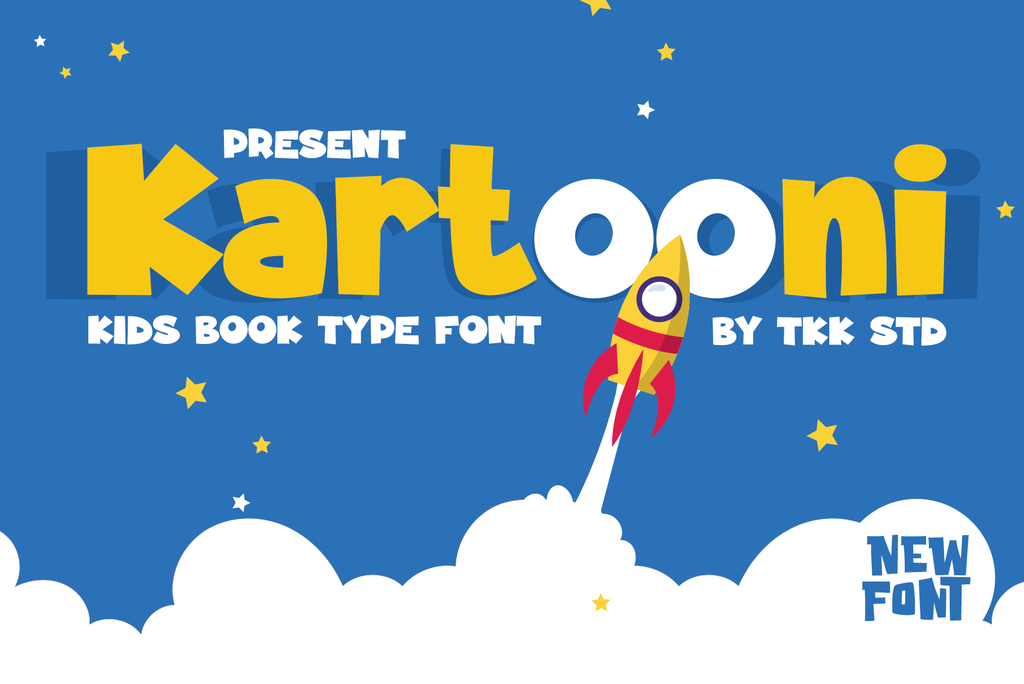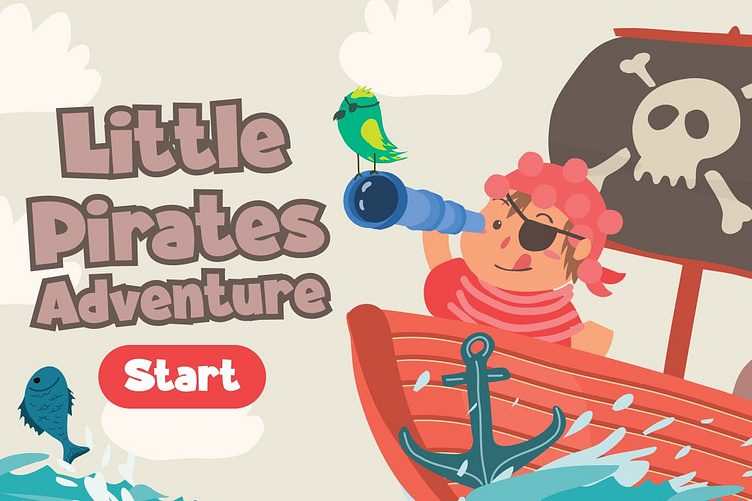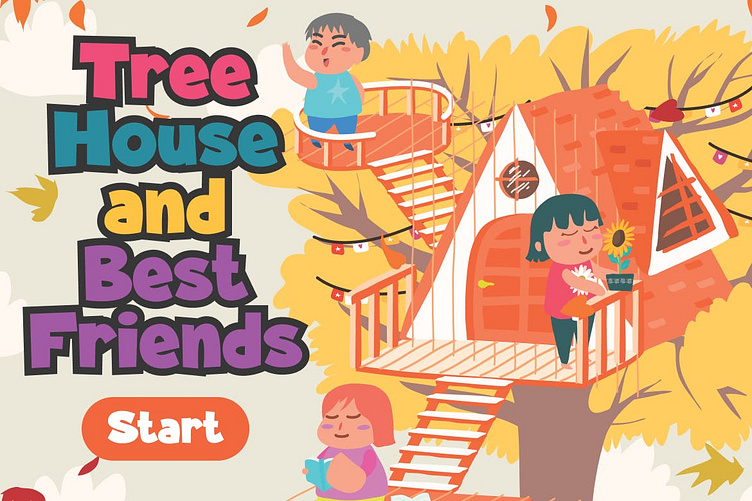
Kartooni – Cartoon Comic Font
Kids Font Kartooni sparks imagination and fun in children’s projects with its bright and cheerful typeface. Its bold, rounded characters and playful style add excitement and creativity to any design. Inspired by the lively, cartoonish world that kids love, this font brings an energetic and whimsical touch to your work.
The dynamic design of Kids Font Kartooni ensures incredible versatility. Each letter showcases a smooth and friendly look, making it both readable and charming. Moreover, its bold structure pairs beautifully with colorful visuals, helping your designs stand out. Whether you craft playful headlines, storybook titles, or interactive materials, Kartooni injects life and joy into every project. The cloud-like accents and space-themed vibe further enhance its unique appeal, creating a font that captivates both kids and adults.
Additionally, this typeface adapts seamlessly to print and digital formats. You can use it for posters, apps, websites, or any medium that requires a fun and approachable touch. With its cheerful style, ensures your designs grab attention while keeping the message clear and engaging.
Kids Font Kartooni Ideal For
Kartooni works perfectly for graphic designers, educators, parents, and businesses targeting children. It fits especially well in storybook titles, classroom materials, and educational posters. The font’s lively design captures young readers’ attention and makes learning materials more engaging and enjoyable.
Marketers and small businesses will find an excellent choice for branding kids’ products. Use it to design packaging for toys, games, and stationery or to create fun and inviting advertisements. Apps, websites, and games aimed at kids can also use this font to build a friendly and exciting visual identity.